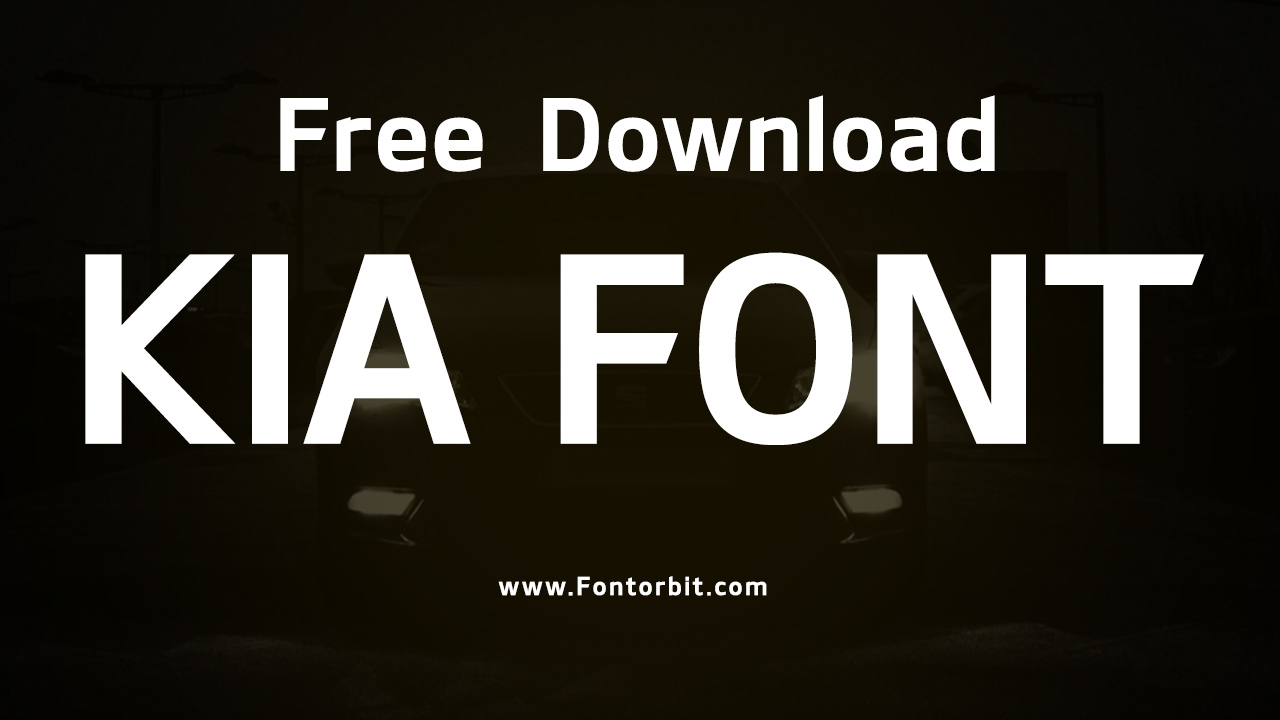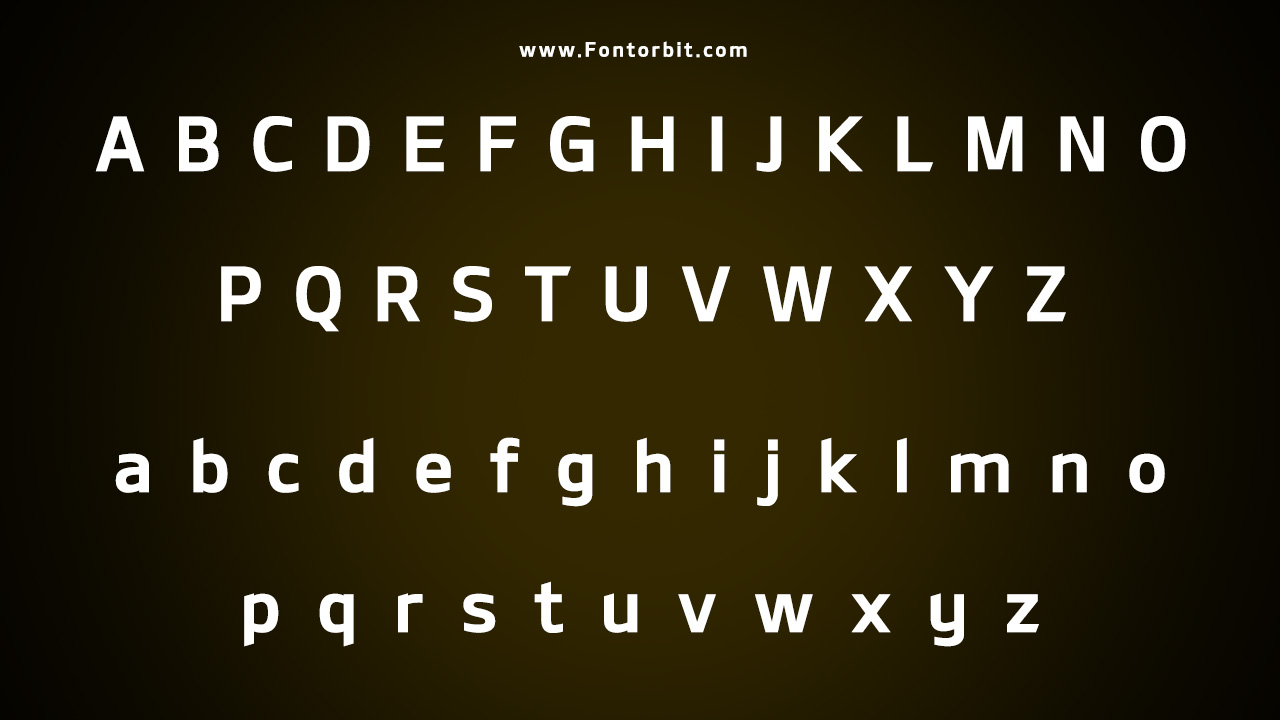
The Kia font, known as the Kia Game Font, is a bold sans-serif typeface designed by Dooyul Kwak, Sungwoo Choi, Youngkwon Noh, and Sanga Kim.
The font features clean, modern lines with a bold aesthetic, making it versatile for various design needs. This typeface is available for personal use and can bring a distinctive edge to your projects.
The Kia Font Family Includes
- Kia bold
- Kia light
- Kia medium
Kia Font belongs to the Sans Serif family and has a clean, contemporary design. It includes various glyphs and special characters, providing a modern look while retaining readability. It’s perfect for personal projects with a professional or stylish theme. Its pairing nature allows it to combine well with other fonts, enhancing the overall design of your project.
Kia Font is widely used in branding, business presentations, and creative projects. Its modern and bold style makes it ideal for capturing attention and conveying a strong visual presence.
1.Why Is Kia Font Called Kia?
Kia Font draws its name from its association with Kia Motors, where its bold and clean design reflects the modern and dynamic image of the brand.
3.What Are The Font Metrics Of Kia Font?
Kia Font includes standard metrics, such as kerning pairs, line height, and character width, optimized for a bold and modern appearance.
6.What Are The Design Principles Behind Kia Font?
Kia Font features clean, bold lines that reflect a modern and professional style, emphasizing clarity and impact in visual design.